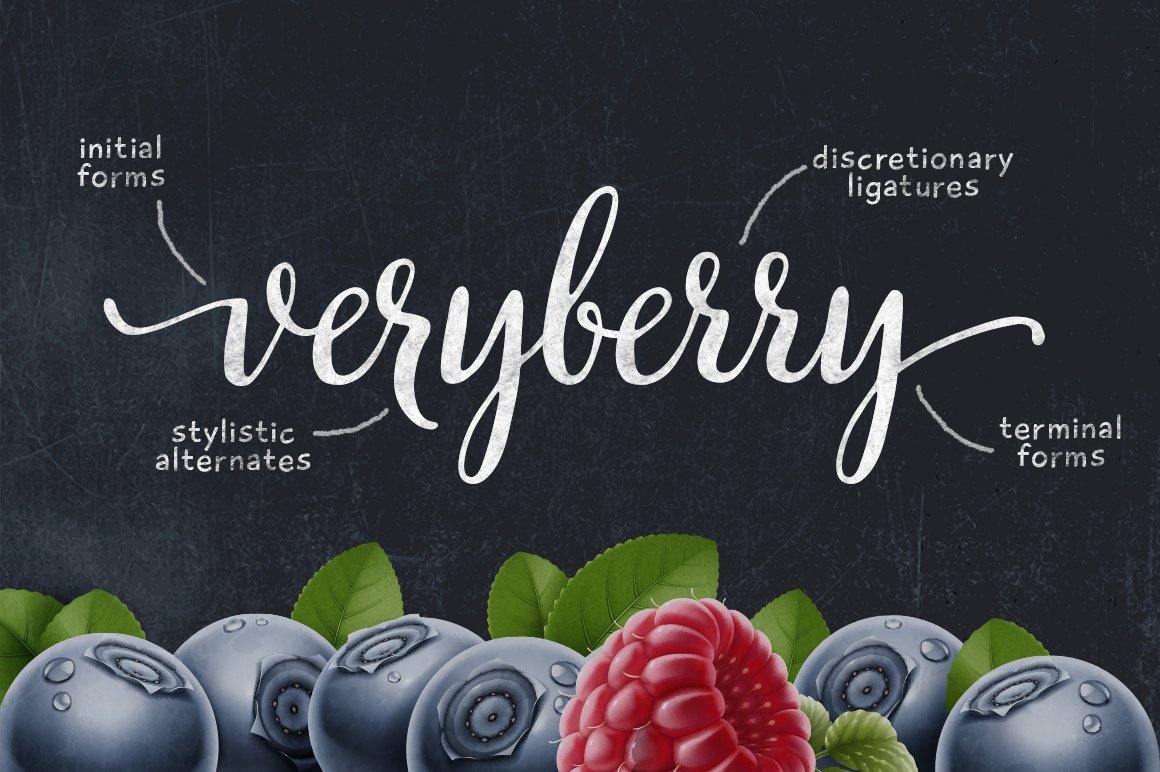
There has been a surge recently in the amount of high quality script fonts being released over at Creativemarket, as well as other marketplaces and places such as MyFonts. Many hand letterer’s are beginning to produce some fantastic digital type available in multiple font families, weights and styles.
There are a lot of copied fonts out there with similar Glyph styles and so we are going to sum up this article into the top 10 (not necessarily 1 meaning the best, but rather top 10 collectively) fonts that we have seen on Creativemarket, and explain the highlights of each typeface
1Heart & Soul by Nicky Laatz Purchase on Creativemarket
Nicky Laatz is by definition one of the most successful authors on Creativemarket, and she has earned this by crafting beautiful typefaces such as one of her latest pieces entitled “Heart and Soul”. This is a sublime script font that really screams quality from end to end.
So what do we love about it so much?
Our personal favourite is the Ampersand and the “r” glyph, which have been crafted to perfection, with a gorgeous handwritten feel.
2Manhattan Darling by Callie Hegstrom Purchase on Creativemarket
Manhattan Darling is a fantastic script font designed by artist Callie Hegstrom. It has a hand painted feel with thick glyphs that make it perfect for title pieces and hand lettered artwork, as she shows in her preview images its also great for textiles and print design. Nice work Callie!
3Butterscotch by Nicky Laatz Purchase on Creativemarket
Well look what we have here, another entry by Nicky Laatz, is this any surprise? Well to be honest, no. Butterscotch is another fantastic script typeface from Nicky that is really quite clean cut in terms of the glyphs she has created. Its a thinner, more elegant script and really lends itself to subtle typography pieces and hand lettering artwork.
4Verryberry by Elena (Mycreativeland) Purchase on Creativemarket
Veryberry is a font on Creativemarket that has really always been popular since it was released. The Glyphs are so smooth It really is a beauty to use. It has some fantastic stylistic alternates and discretionary ligatures, making this a truly complete script font, and well deserving of being in this top list.
5Octavia by AF Studio Purchase on Creativemarket
Octavia is a great script font developed by the team at AF Studio. It embellishes all the characteristics of a solid script typeface, artistic ascenders and descenders. However, the main thing we noticed with this font was what we call the “flow”, It just flows perfectly from letter to letter, there are hardly any faults you can pick with this type face, and as such, It is the reason why It is in our list of Top 10 Script fonts!
6Steady by artimasa Purchase on Creativemarket
Steady is probably the “cleanest”, most perfectly crafted script font in this list. When i say perfect, I mean almost mathematically perfect. The glyphs just flow perfectly from pixel to pixel with clean lines. This font would be fantastic to use in Branding or Identity work, and scales perfectly in terms of readability, fantastic work guys!
7Wanderlust by Cultivated Mind Purchase on Creativemarket
Wanderlust by Cultivated Mind has earned a spot in this top 10 list due to the fact Its a phenomenal hand painted script font. The shape and form of this script are perfect for organic & vintage lettering projects and print work.
8Pretty Script by Decade Type Foundry Purchase on Creativemarket
Pretty Script by Decade Type Foundry is well, Pretty. (Yeah, I do have a way with words I’ll admit). It’s not particularly “thick” or “thin”, but weighted just right for usage in a variety of different artistic mediums, whether Its a hand lettered type piece or just digital artwork and illustration.
9Nabila by Artimasa Purchase on Creativemarket
Making another appearance is the type designer Artimasa, who has produced another clean, well contrasted script font in the form of “Nabila”. This, along with “Steady” mentioned above would be fantastic script fonts to use in Game Design or App Design, you could easily imagine this fonts in an Angry Birds style app or something similar. I’m putting this in this top 10 fonts list to show something different than all the hand lettered / hand painted fonts out there currently.
Smoothy is a fantastic cursive script font (that also comes packaged with Smoothy Sans I believe) that is different to the ones above, but still equally as elegant, with smooth glyph formations that just connect perfectly. It deserves a place in this list for sure 🙂